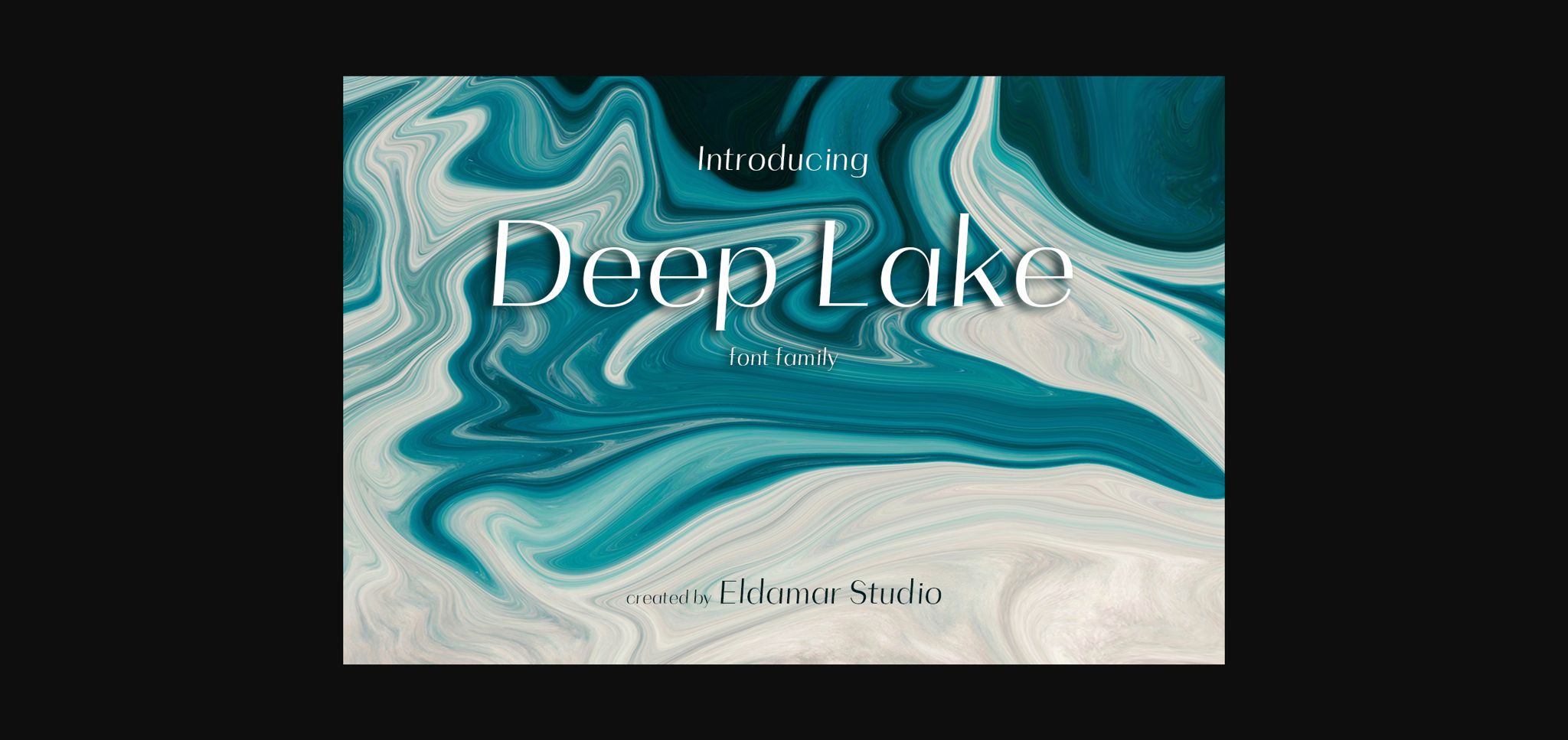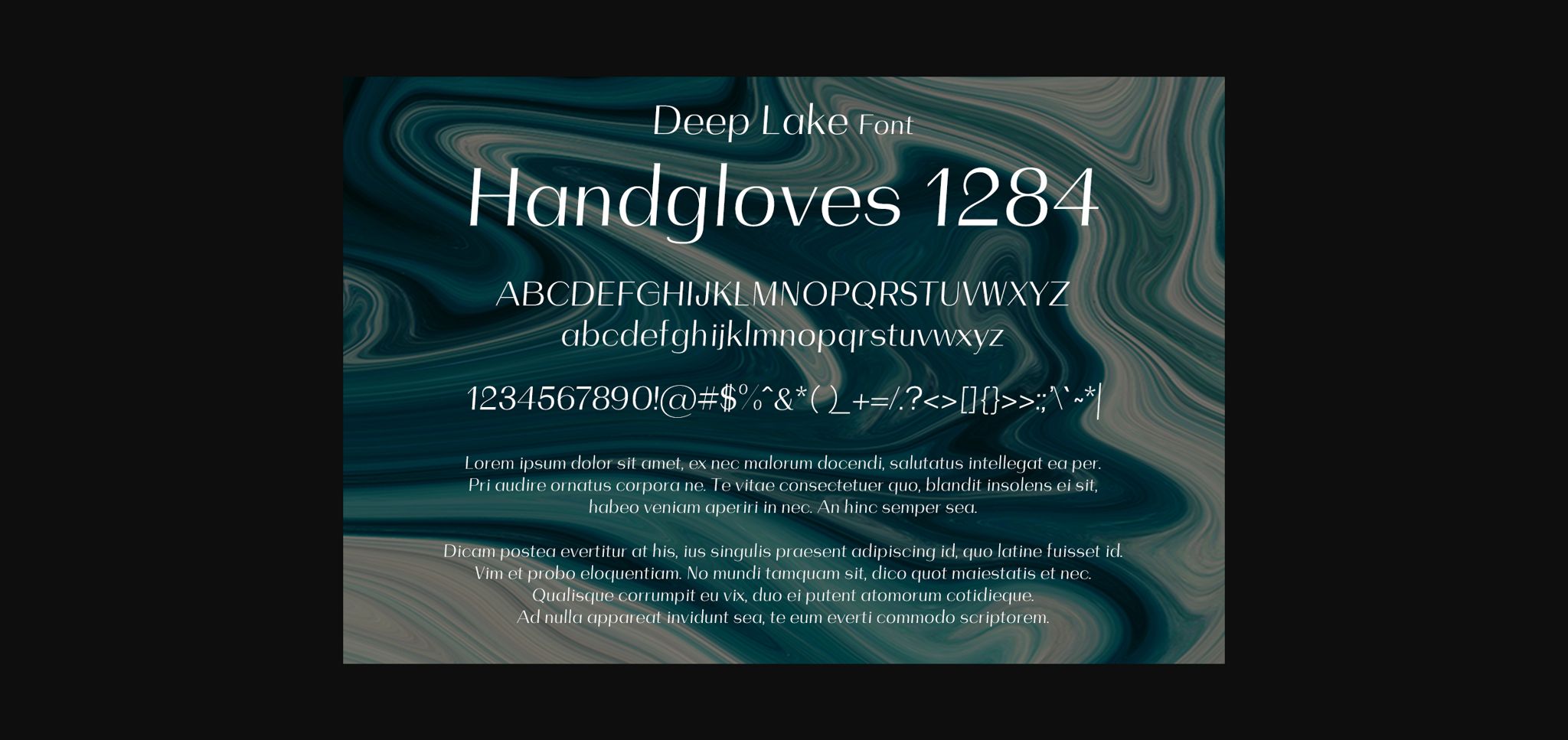
About Deep Lake Font
Deep Lake is a minimal, yet elegant sans serif font. Suitable to a wide variety of designs due to its neat and simple style, this font has the potential to become your favorite go-to font, no matter the occasion!